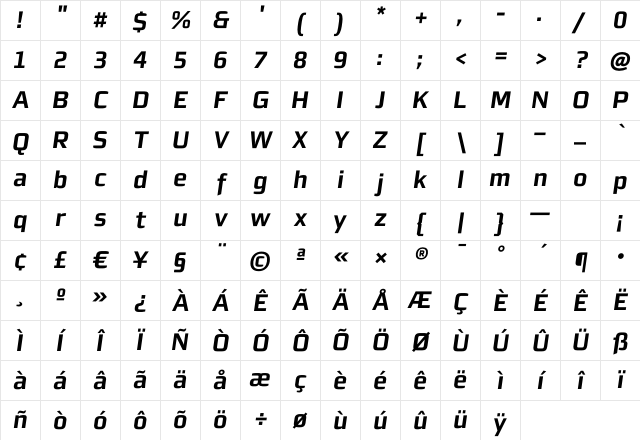
MorganSnLining Bold Oblique
Style: Bold Oblique
MorganSnLining Family
Design Context for MorganSnLining
MorganSnLining is a composed and adaptable typeface that performs quietly and consistently across a wide range of design contexts. The slanted form adds forward momentum and visual energy. Its bold stroke weight gives it real presence on the page.
Pro Tip: Use MorganSnLining for emphasis, pull quotes, and subheadings where its slanted energy can add rhythm to the layout.